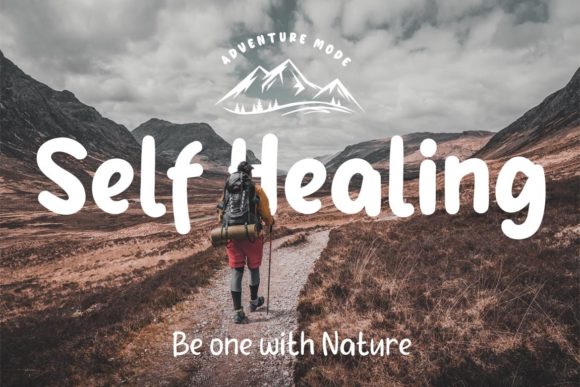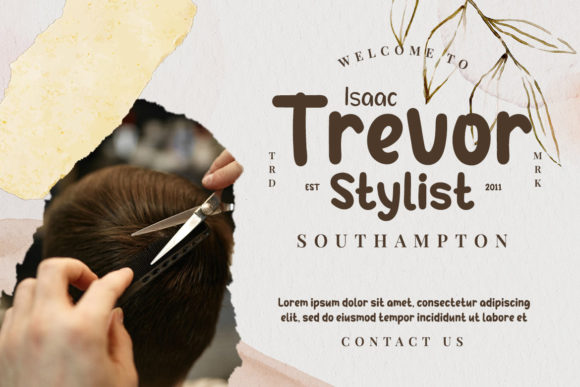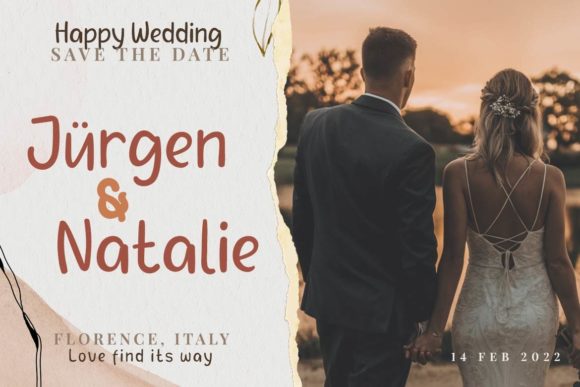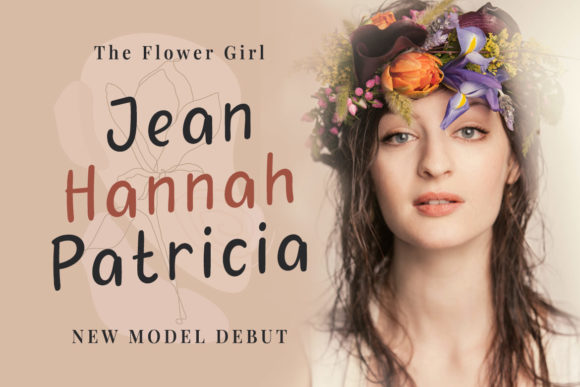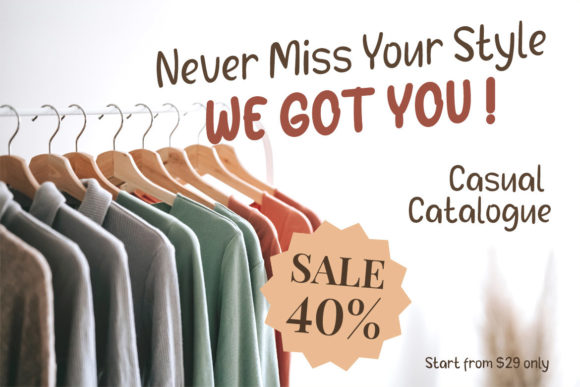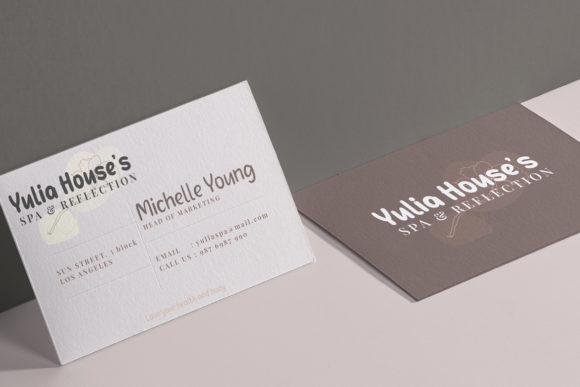
Introducing Gefuh Font: The Ultimate Casual and Adaptable Handwritten Font
Are you tired of using the same old fonts in your designs? Look no further than Gefuh Font, a casual and adaptable handwritten font that’s perfect for adding a personal touch to your creations. With its unique charm and versatility, Gefuh Font is a wonderful asset to any font library, and is sure to enhance any project you throw at it.
The Characteristics of Gefuh Font
Gefuh Font is a handwritten font that’s designed to be both casual and adaptable. Its flowing lines and organic feel make it perfect for a wide range of design applications, from social media graphics and blog posts to branding and packaging. The font’s unique characteristics include:
- Handwritten feel: Gefuh Font has a distinctly handwritten feel that’s perfect for adding a personal touch to your designs.
- Casual and relaxed: The font’s casual and relaxed vibe makes it perfect for designs that need to feel friendly and approachable.
- Adaptable: Gefuh Font is incredibly versatile, and can be used for a wide range of design applications.
The Benefits of Using Gefuh Font
So why should you choose Gefuh Font for your next design project? Here are just a few benefits of using this amazing font:
- Enhances creativity: Gefuh Font’s unique and playful design is sure to inspire your creativity and add a fresh touch to your designs.
- Perfect for bloggers and social media influencers: The font’s casual and relaxed vibe makes it perfect for bloggers and social media influencers who want to add a personal touch to their content.
- Great for branding and packaging: Gefuh Font’s adaptability and versatility make it a great choice for branding and packaging design.
- Easily readable: Despite its handwritten feel, Gefuh Font is incredibly easy to read, making it perfect for body text and other long-form content.
How to Use Gefuh Font in Your Designs
Using Gefuh Font in your designs is easy! Here are a few tips to get you started:
- Pair it with bold fonts: Gefuh Font’s casual and relaxed vibe pairs perfectly with bold fonts, creating a striking contrast that’s sure to grab attention.
- Use it for headings and titles: Gefuh Font’s unique and playful design makes it perfect for headings and titles, adding a touch of personality to your designs.
- Experiment with colors: Gefuh Font looks great in a wide range of colors, so don’t be afraid to experiment and find the perfect hue for your design.
Who is Gefuh Font for?
Gefuh Font is perfect for a wide range of designers and crafters, including:
- Graphic designers: Gefuh Font’s versatility and adaptability make it a great choice for graphic designers who need a font that can handle a wide range of design applications.
- Bloggers and social media influencers: The font’s casual and relaxed vibe makes it perfect for bloggers and social media influencers who want to add a personal touch to their content.
- Crafters and scrapbookers: Gefuh Font’s playful and creative design makes it a great choice for crafters and scrapbookers who want to add a personal touch to their projects.
In conclusion, Gefuh Font is a casual and adaptable handwritten font that’s perfect for adding a personal touch to your designs. With its unique charm and versatility, Gefuh Font is a wonderful asset to any font library, and is sure to enhance any project you throw at it. Whether you’re a graphic designer, blogger, or crafter, Gefuh Font is a great choice for anyone looking to add a touch of personality to their designs.